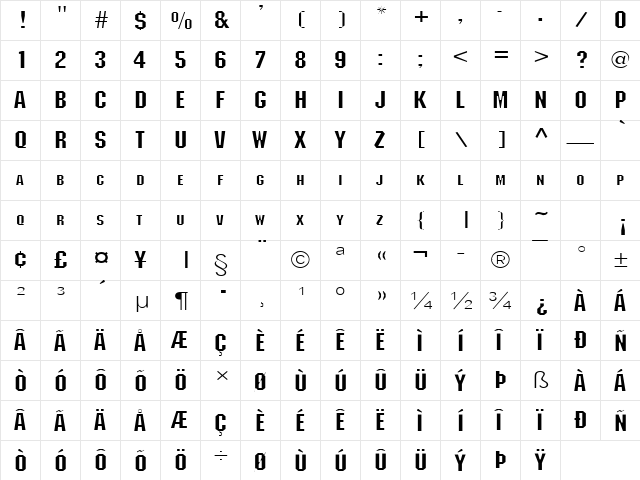
Block Wide Normal
Design Context for Block Wide Typeface
Block Wide offers clean, dependable letterforms without strong stylistic allegiance, making it a practical choice for designers who need flexibility.